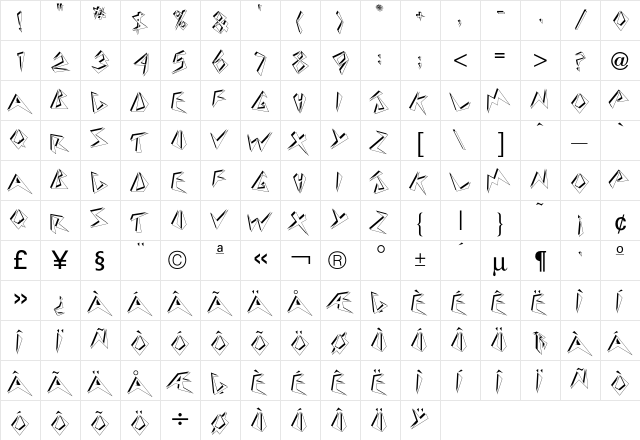
Beebopp Font
Design Context for Beebopp Typeface
Beebopp is a composed and adaptable typeface that performs quietly and consistently across a wide range of design contexts.